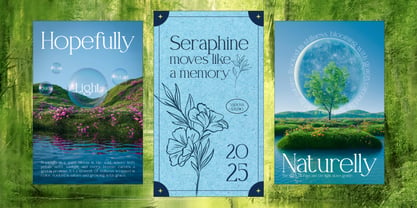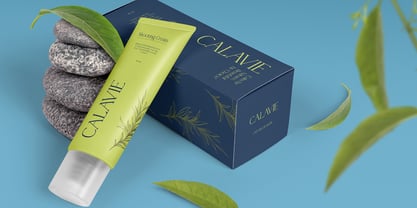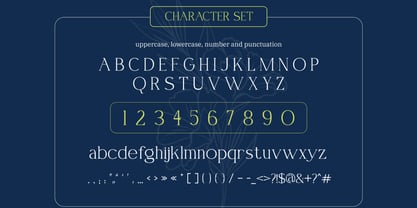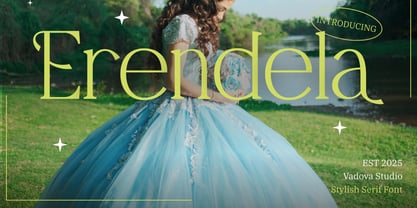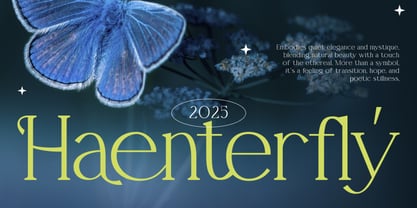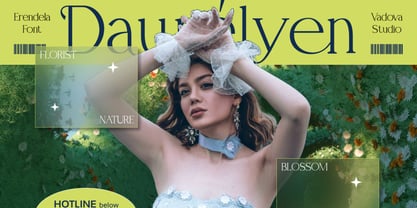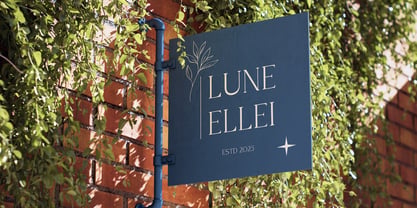
Erendela
Erendela is a sophisticated Stylish Serif Font that epitomizes quiet elegance and ethereal beauty. Characterized by its tall x-height, high-contrast strokes, and delicate flared terminals, this typeface blends classical Roman proportions with a modern, poetic aesthetic. The character set includes uppercase and lowercase letters, numerals, and a comprehensive range of punctuation and symbols. Erendela is highly relevant for the luxury goods, beauty, and fashion industries. Its slender and graceful form makes it an exceptional choice for magazine mastheads, perfume packaging, skincare branding, and upscale wedding stationery. It excels in "Editorial" style layouts where white space and delicate typography are used to convey a sense of premium quality and artistic stillness.